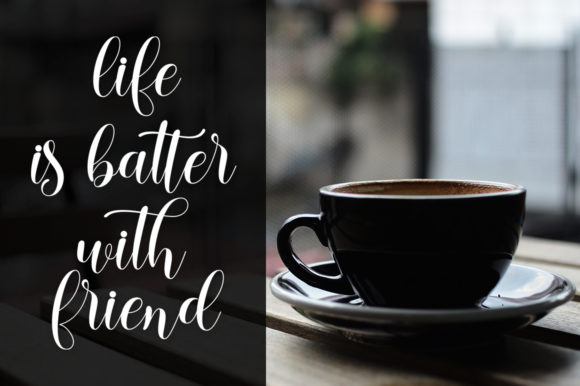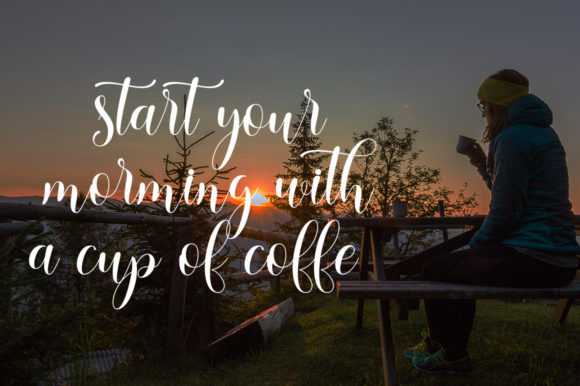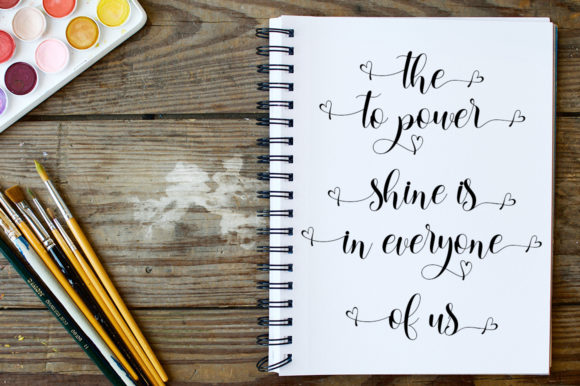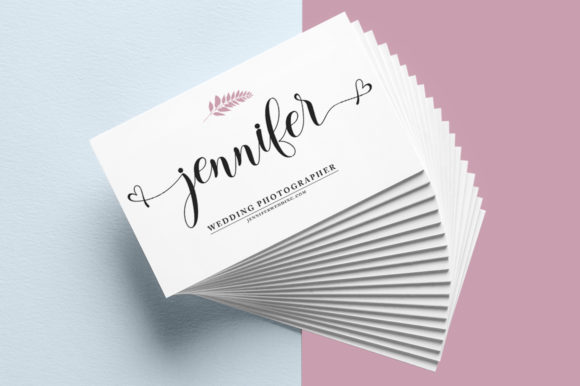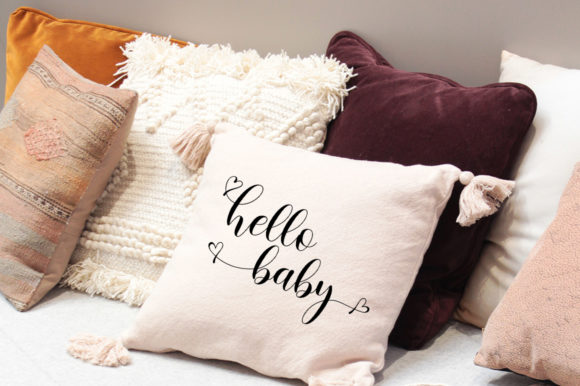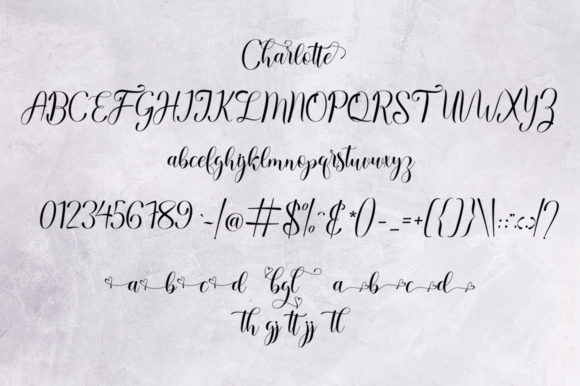
Discover the Charm of Charlotte Font: A Cute and Romantic Handwritten Script
Are you a designer, crafter, or DIY enthusiast looking for a font that can add a touch of elegance and friendliness to your creative projects? Look no further than Charlotte Font, a beautiful handwritten script that is sure to capture your heart. With its gorgeous swashes and ligatures, Charlotte is an incredibly versatile font that can be used for a wide range of applications, from Instagram posts to calligraphy scripts for DIY projects.
What Makes Charlotte Font So Special?
Charlotte Font is a unique and charming script that boasts an incredibly friendly feel. Its handwritten style is perfect for adding a personal touch to your designs, making them stand out from the crowd. The font features stunning swashes and ligatures that give it a romantic and elegant feel, making it perfect for a variety of creative projects.
Key Features of Charlotte Font
• Cute and Romantic Handwritten Style: Charlotte Font has a beautiful handwritten style that is both cute and romantic, making it perfect for a wide range of creative projects.
• Gorgeous Swashes and Ligatures: The font features stunning swashes and ligatures that add an extra touch of elegance and sophistication to your designs.
• Incredibly Versatile: Charlotte Font is an incredibly versatile script that can be used for a wide range of applications, from Instagram posts to calligraphy scripts for DIY projects.
• Easy to Read and Write: The font is easy to read and write, making it perfect for use in body text, headings, and titles.
Uses for Charlotte Font
Charlotte Font is perfect for a wide range of creative projects, including:
• Instagram Posts: Add a touch of elegance and sophistication to your Instagram posts with Charlotte Font.
• Calligraphy Scripts: Use Charlotte Font to create beautiful calligraphy scripts for DIY projects, such as wedding invitations, greeting cards, and more.
• Branding and Packaging: Use Charlotte Font to add a personal touch to your brand’s packaging and marketing materials.
• Stationery and Journaling: Add a touch of elegance and sophistication to your stationery and journaling projects with Charlotte Font.
Tips for Using Charlotte Font
Here are a few tips for using Charlotte Font in your creative projects:
• Experiment with Swashes and Ligatures: Don’t be afraid to experiment with the font’s gorgeous swashes and ligatures to add an extra touch of elegance and sophistication to your designs.
• Use it in Combination with Other Fonts: Charlotte Font pairs well with a wide range of fonts, so don’t be afraid to use it in combination with other fonts to create a unique and interesting look.
• Pay Attention to Kerning and Tracking: Make sure to pay attention to kerning and tracking when using Charlotte Font to ensure that your text looks professional and polished.
Charlotte Font is a beautiful and charming handwritten script that is sure to capture your heart. With its gorgeous swashes and ligatures, incredibly friendly feel, and versatility, it’s the perfect font for designers, crafters, and DIY enthusiasts looking to add a touch of elegance and sophistication to their creative projects. Whether you’re looking for fonts for Instagram or calligraphy scripts for DIY projects, Charlotte Font is sure to turn any creative idea into a true piece of art!